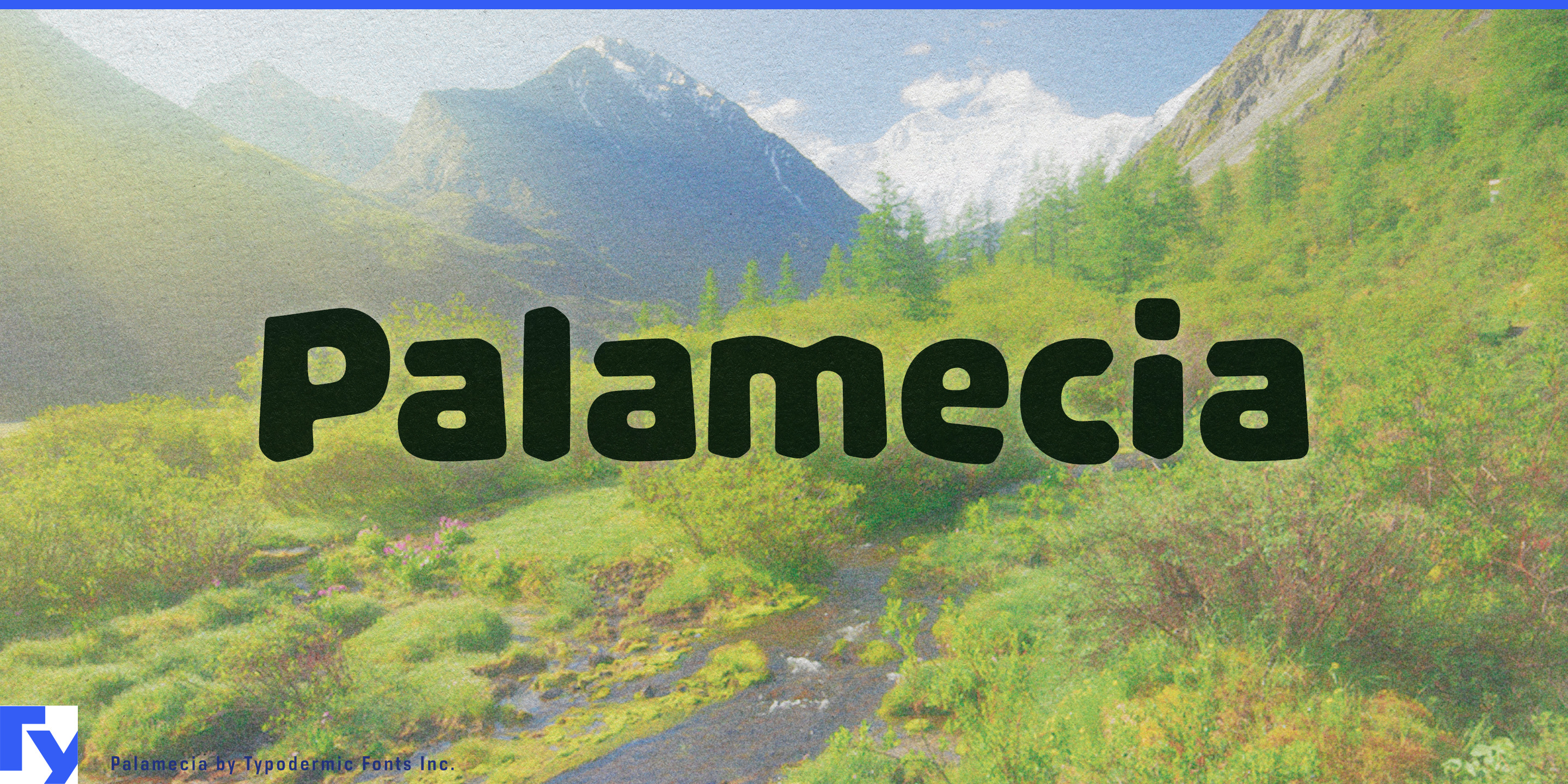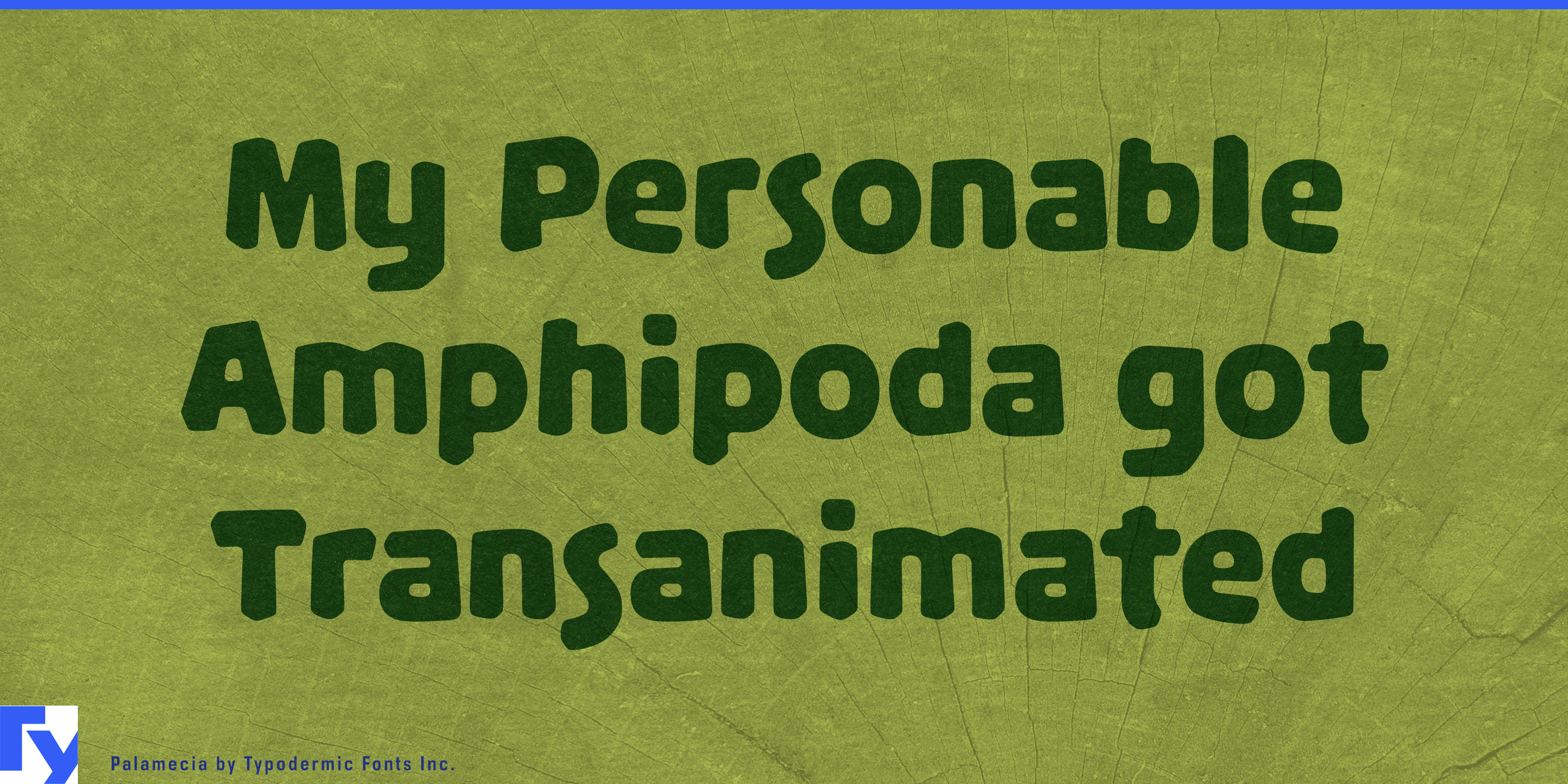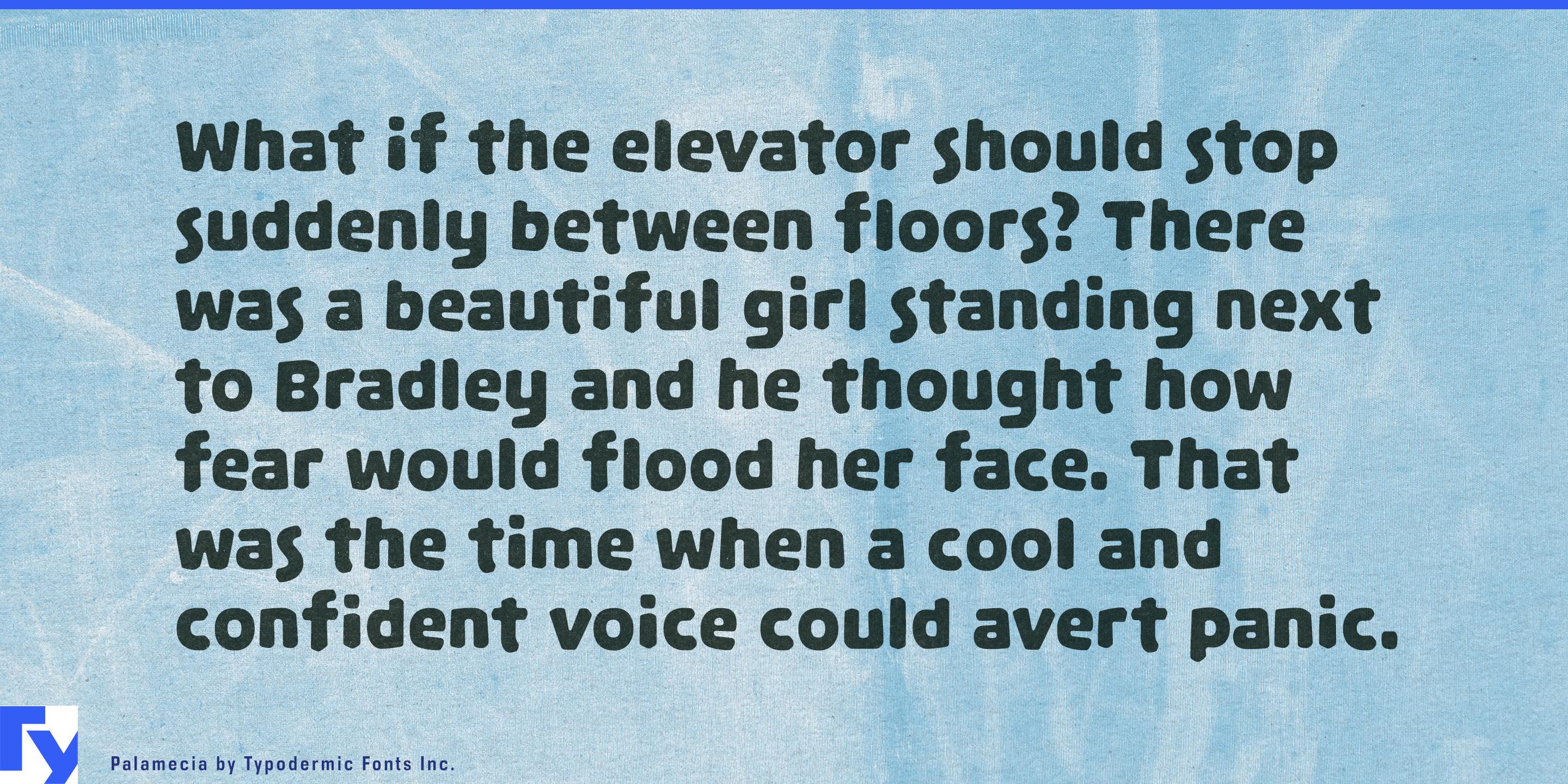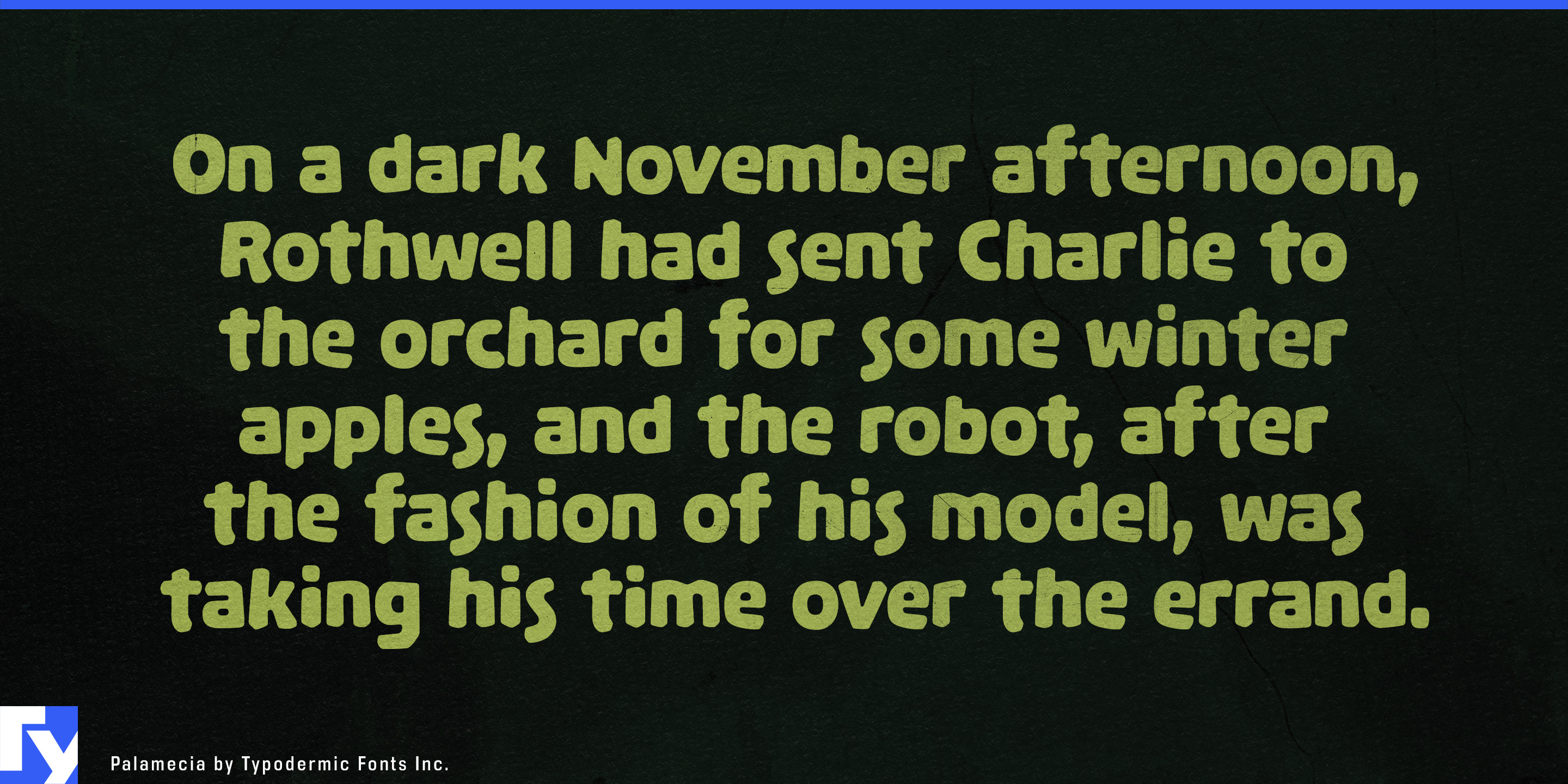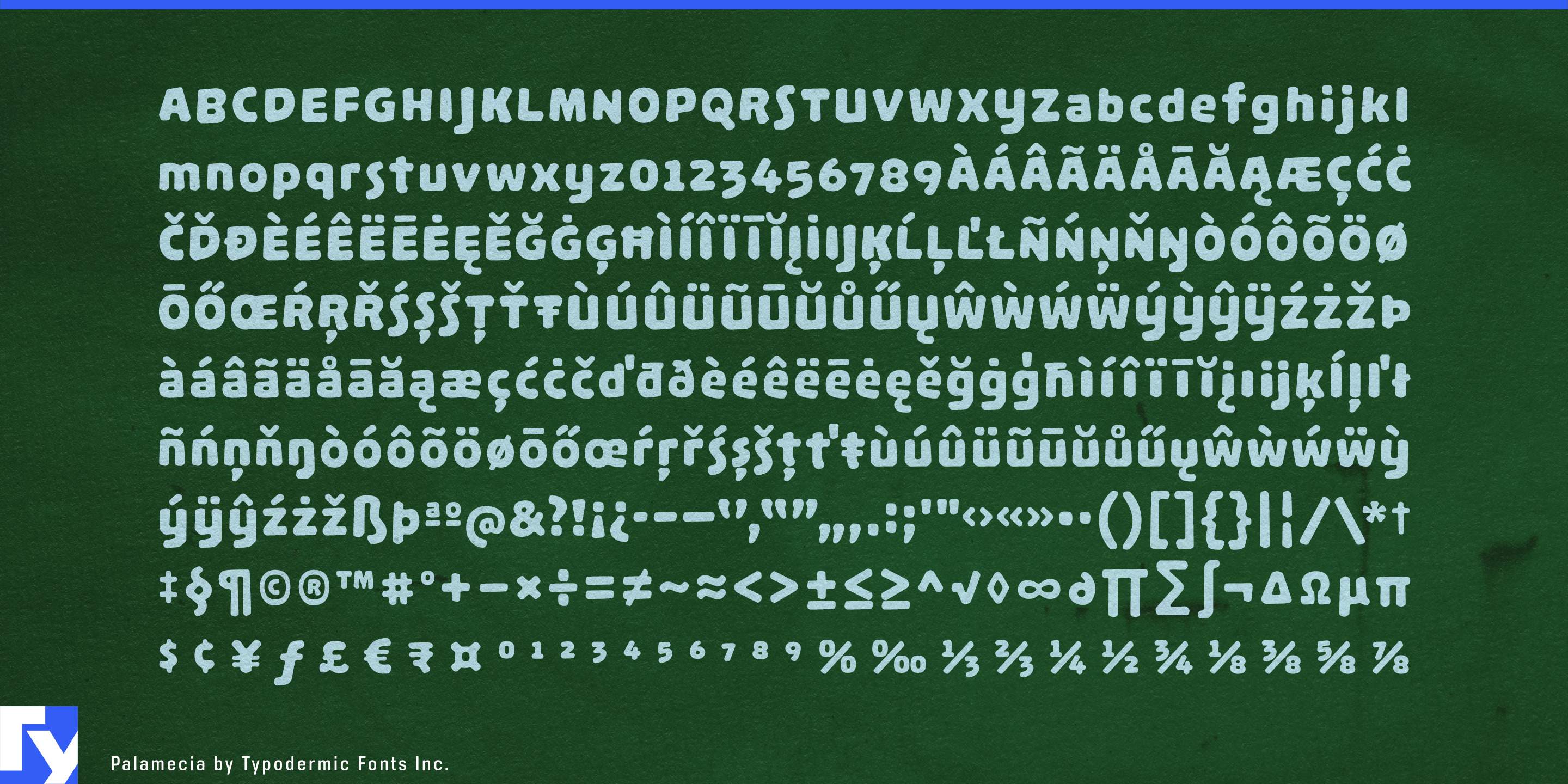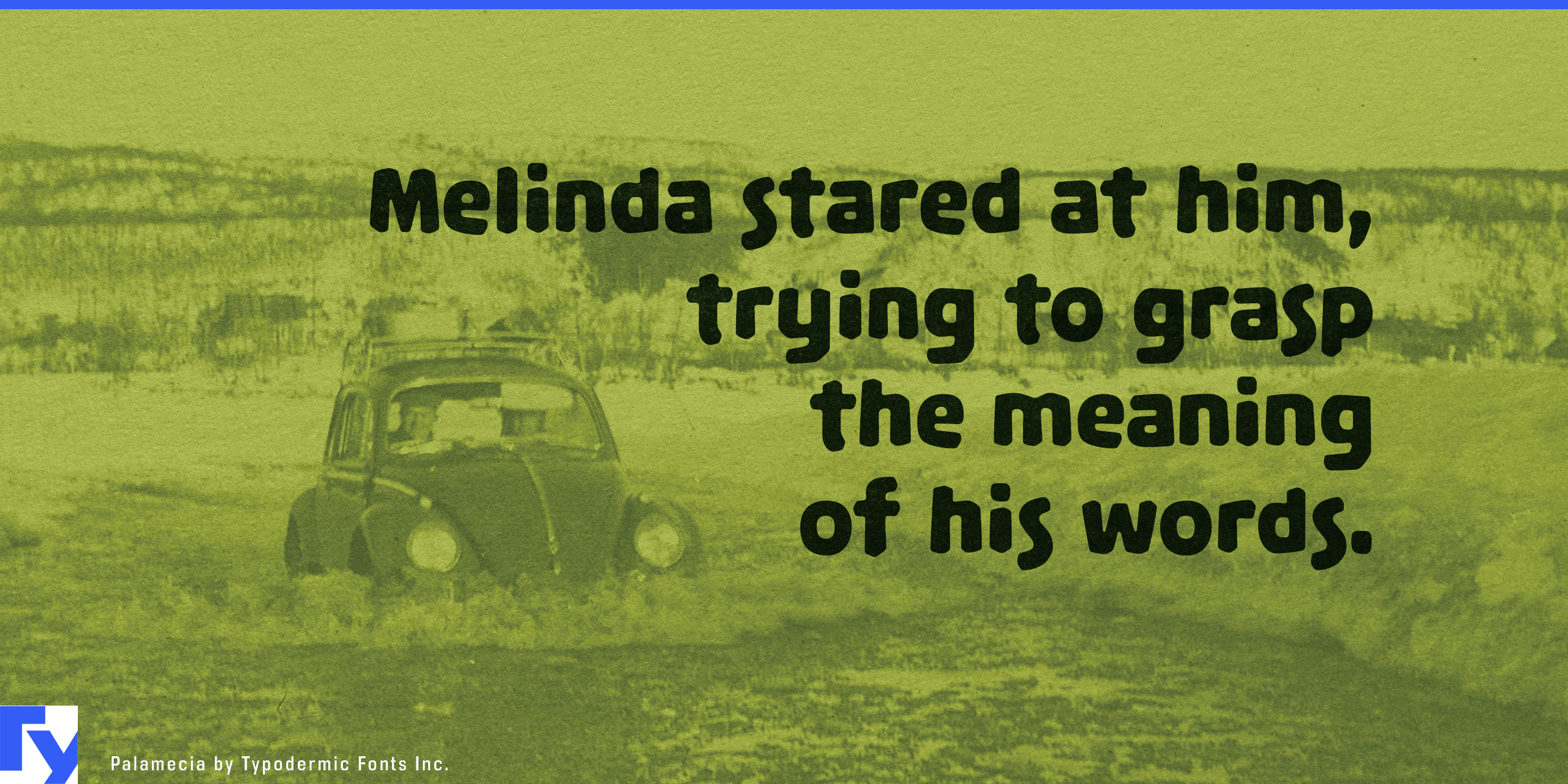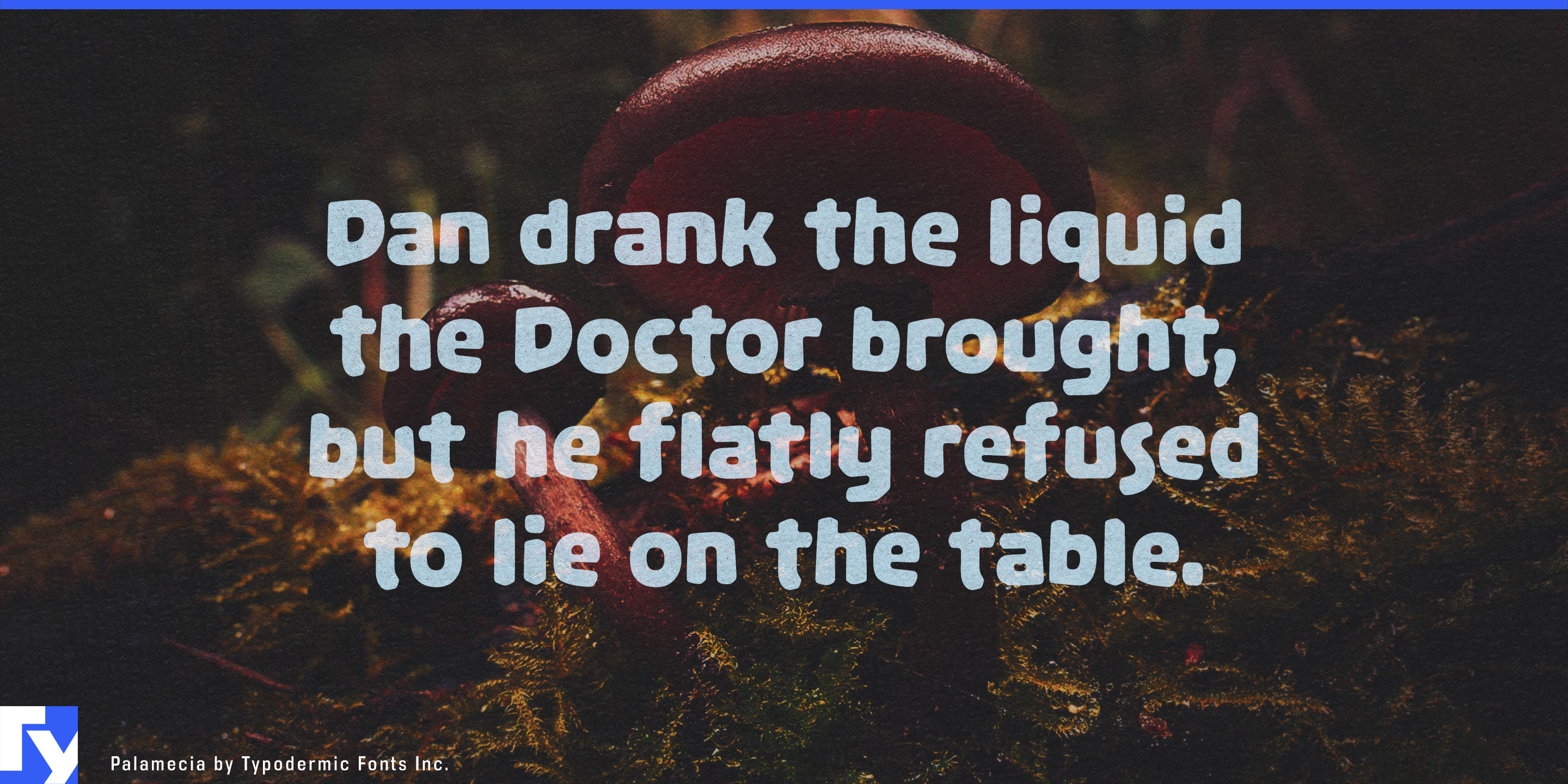
Palamecia
Most screen type starts with a clean letterform and tries to preserve as much of it as possible when resolution gets poor. Palamecia was designed from the opposite direction. Instead of protecting crisp strokes from fuzzy pixels, it accepts the fuzziness from the beginning. The letters were developed as soft, low-resolution shapes first, then turned into finished outlines.
That changes what can be optimized. Without a conventional stroke skeleton dictating every decision, counters can open wider, distinguishing features can grow, and awkward junctions can be simplified until the character remains recognizable after reduction and blur. Rather than having a crisp letter surrounded by uncertain pixels, Palamecia treats the whole form as equally soft. The degradation becomes consistent instead of accidental.
Those decisions also explain its unusual appearance at full size. Palamecia is chunky, open, and slightly irregular because its shapes were judged by what survived under imperfect conditions. Large counters and emphatic silhouettes give the alphabet a friendly, almost molded quality, but that personality was not added afterward. The same exaggerations that give Palamecia its character are the ones that clarify the letters when detail starts disappearing.
That makes Palamecia particularly relevant to interfaces that cannot assume a pristine display. Small embedded screens, inexpensive consumer hardware, rescaled interface graphics, and devices viewed from a little farther away all recreate some of the conditions that generated Palamecia in the first place. Countertop appliances, coffee machines, home controllers, exercise equipment, charging hardware, and other physical products can use it when the interface needs to remain approachable without looking like industrial instrumentation.
Family-oriented hardware is another natural setting. Interactive learning devices, children’s audio players, electronic toys, and other products shared between adults and children often need lettering that can survive modest displays while avoiding the severity of conventional technical typography. Palamecia’s broad counters and simplified forms provide clarity through shape rather than through a neutral or institutional appearance.
The same qualities can work at larger physical scale in interactive environments. Science-centre exhibits, family museum installations, theme-park interfaces, ticketing and queue systems, and hands-on educational displays may be viewed at odd distances, scaled across different hardware, or rendered on equipment chosen for durability rather than typographic finesse.
Palamecia treats imperfect rendering as a design condition. Instead of drawing an ideal letter and hoping enough survives, it starts by deciding what must survive and lets the finished letterform grow from there.
- Dual purpose
- Open counters